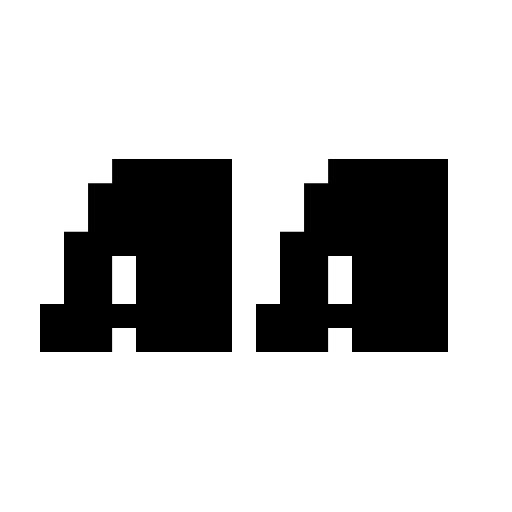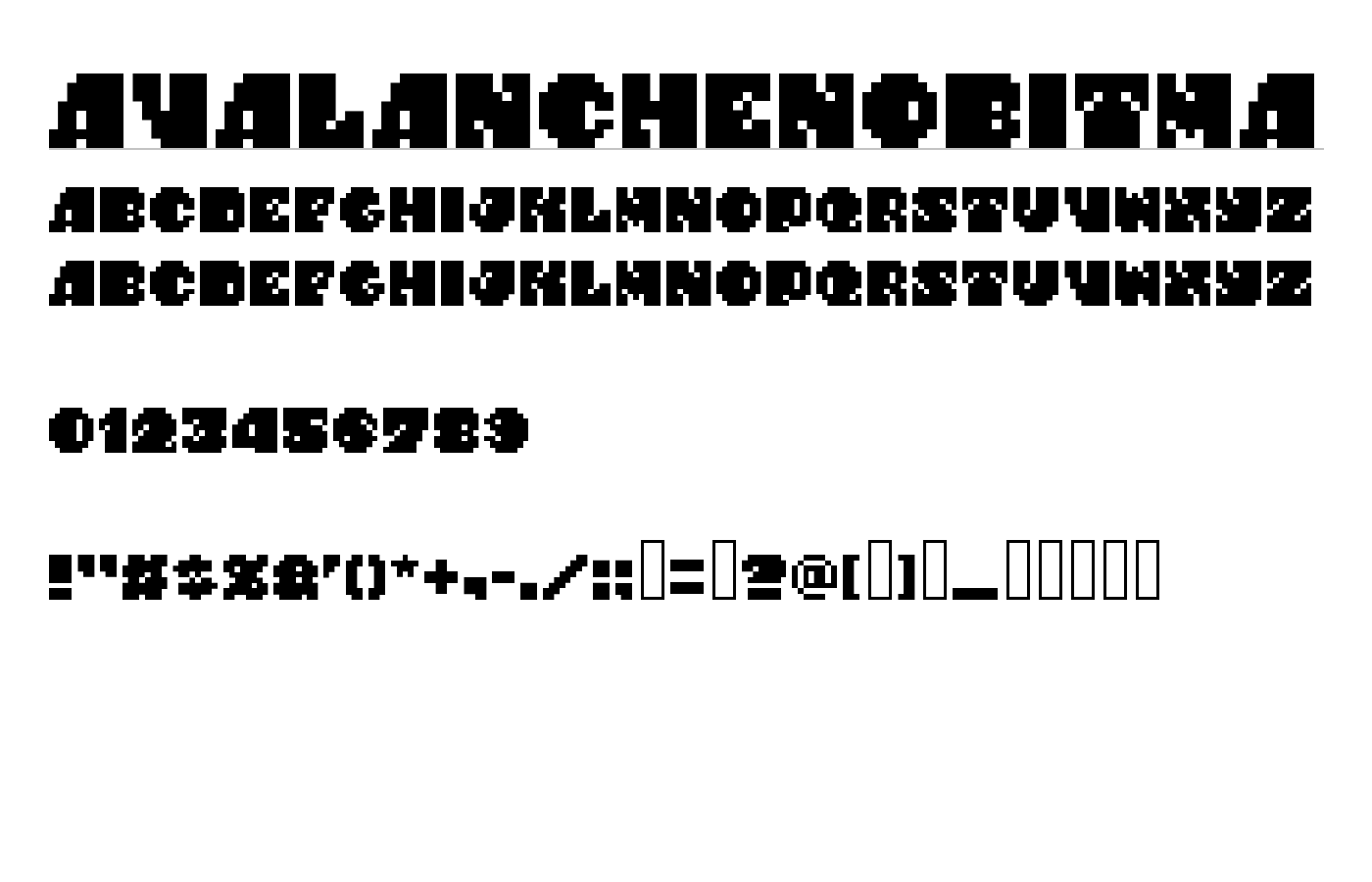
AvalanchenoBitma is a bold, blocky pixel-style sans serif font characterized by its thick, uniform strokes and strong square shapes, evoking a retro digital or gaming aesthetic. With its condensed width and consistent uppercase letterforms, it fits perfectly in designs requiring a modern, techy, or playful vibe, making it ideal for video game graphics, digital art, and eye-catching headlines. This font stands out with its pixelated charm, enhancing projects that want to capture a nostalgic yet dynamic digital feel.
AvalanchenoBitma Font
About AvalanchenoBitma Font